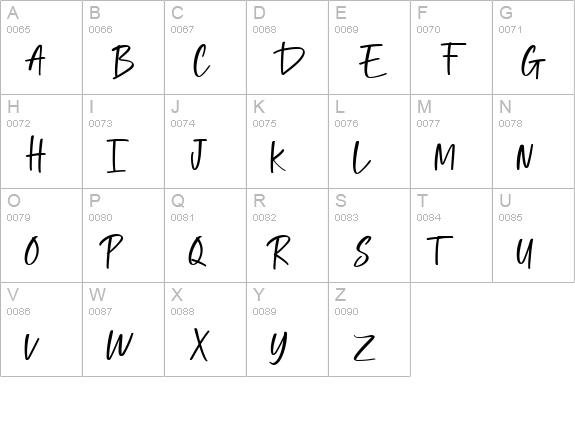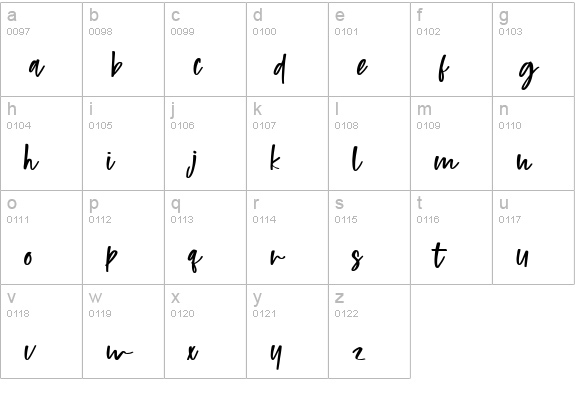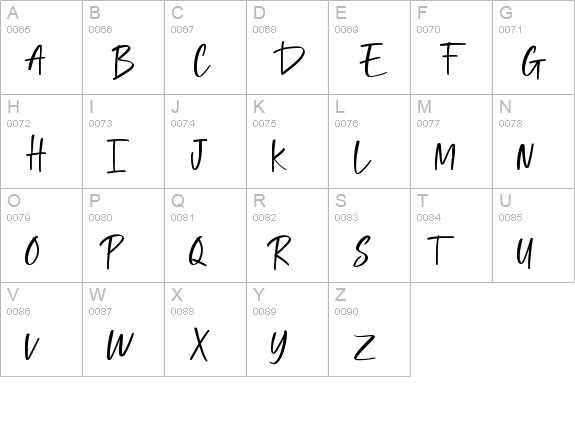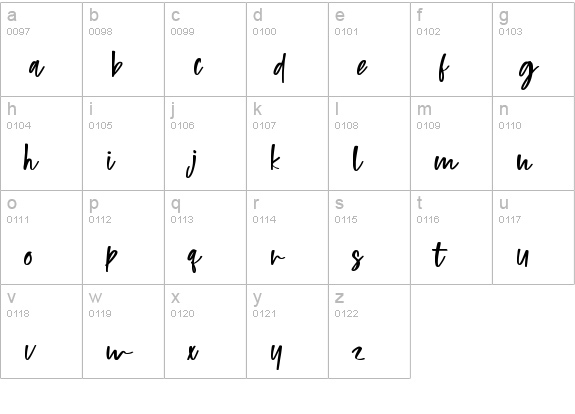
Baby Lullaby Font Details
Baby Lullaby font is a charming and whimsical typeface that exudes a sense of innocence and playfulness. With its gentle curves and soft lines, this font is perfect for creating designs that evoke a sense of comfort and nostalgia. Whether you're working on a baby shower invitation, a children's book cover, or a nursery wall art, Baby Lullaby font will add a touch of sweetness to your project.